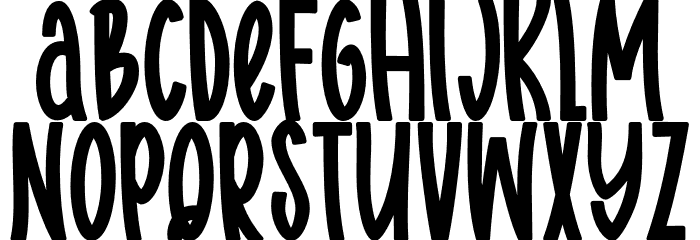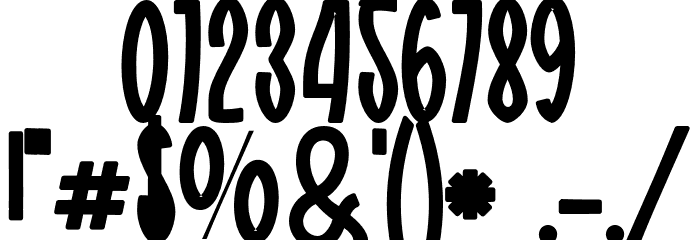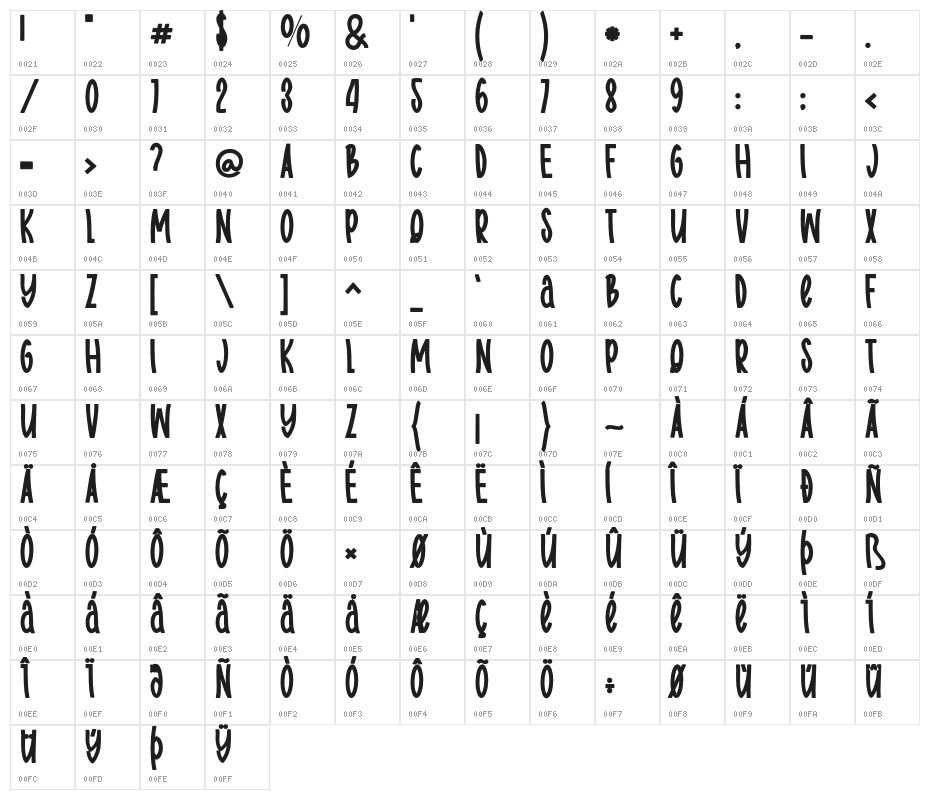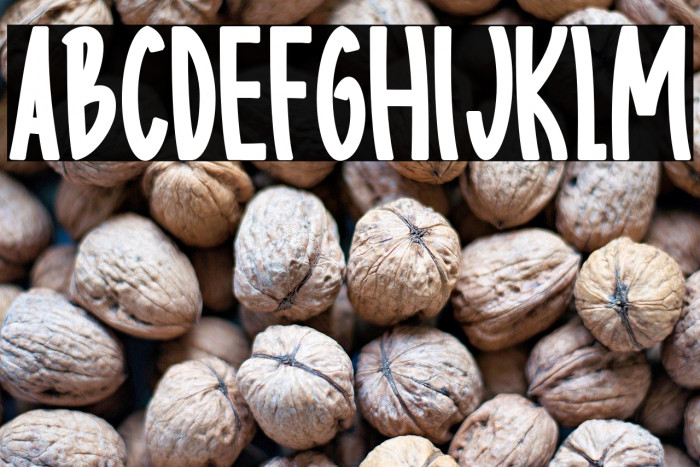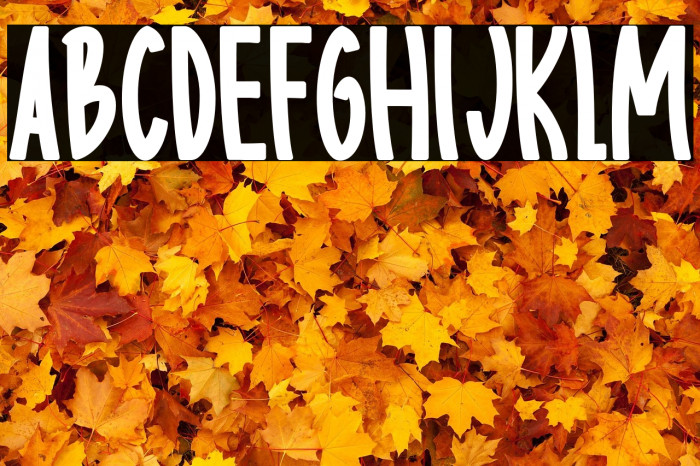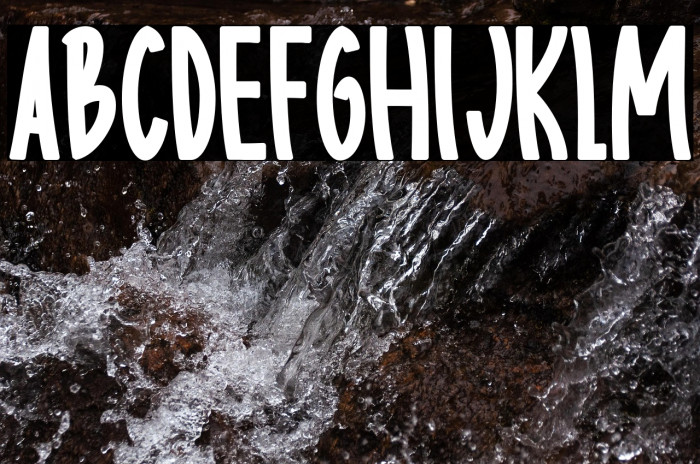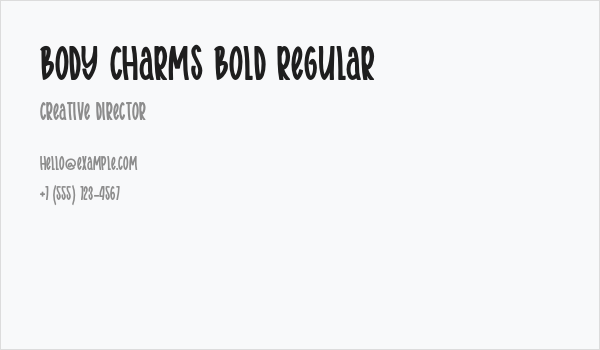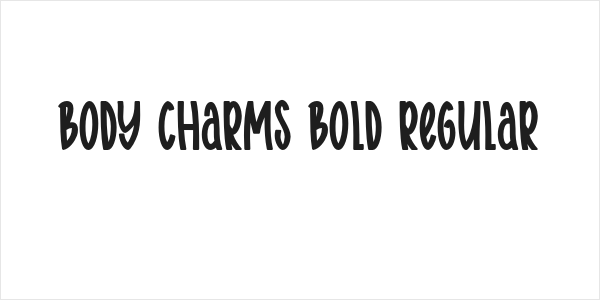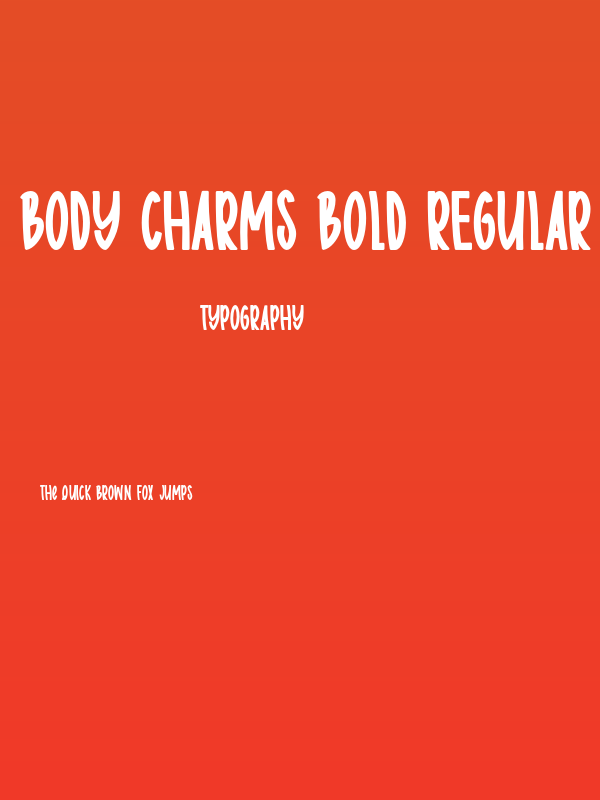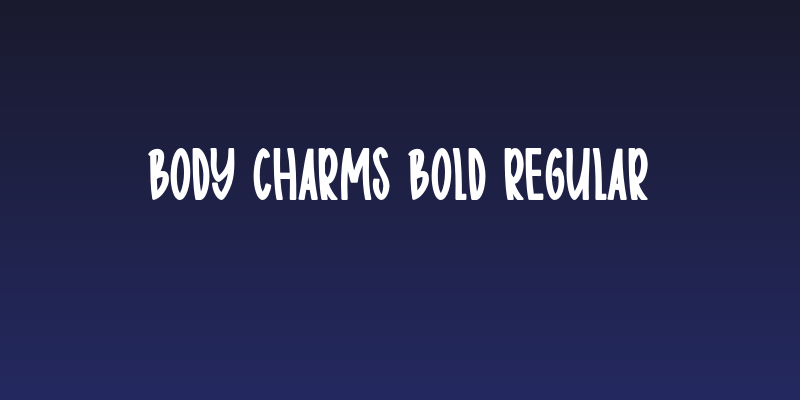
Body charms bold Regular Font
This font features a bold and playful style with a hand-drawn appearance. The letters are tall and slightly narrow, with a whimsical and energetic vibe. The strokes are thick and consistent, giving it a strong presence. The characters have a unique charm, with some letters featuring slight curves and playful angles. The numbers and special characters maintain the same lively style, making it suitable for creative and informal designs. The overall look is both modern and fun, perfect for projects that require a touch of personality and flair.
A bold, playful, and hand-drawn style font with a whimsical charm.
- Font: Body charms bold Regular
- Proposed Projects: Ideal for children's books, playful branding, posters, and creative invitations.
- Category: Handwritten
- Overall Style: Playful, Modern